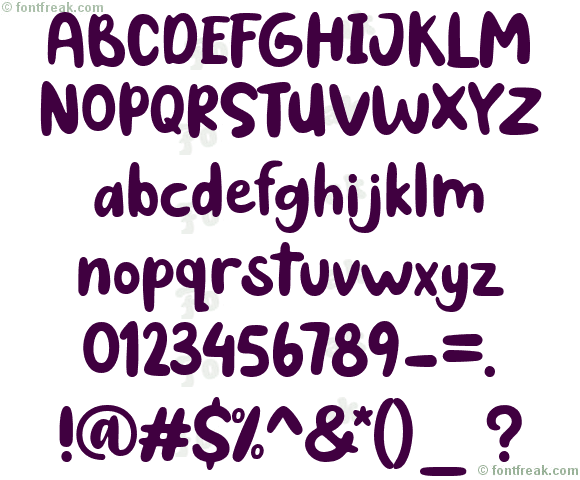
Spooky Cat
The Spooky Cat font by Situjuh Nazara is a playful, decorative typeface that embraces a whimsical yet slightly eerie aesthetic, making it perfect for various creative projects. This font falls into the display category, characterized by its bold, chunky letterforms that showcase a unique blend of fun and spookiness. The stroke weight is consistently thick, providing a robust presence, while the rounded edges add a friendly touch. The spacing is generous, enhancing readability and allowing the letters to breathe, which is particularly beneficial for design applications requiring clarity.
Ideal for Halloween-themed designs, the Spooky Cat font can be used effectively in a variety of contexts. It shines on party invitations, where its playful nature adds a festive flair. Graphic designers can utilize it for eye-catching movie posters, particularly for horror or supernatural genres, as it captures the essence of the theme. Small business owners, especially those in the food and beverage industry, may find it suitable for quirky restaurant menus or promotional materials. Content creators looking to engage their audience can incorporate this font in social media graphics or blog headers, giving their work a distinctive personality.
The target audience for the Spooky Cat font includes graphic designers, small business owners, and content creators who are in search of a unique typeface that resonates with a whimsical, spooky theme. This font stands out due to its ability to blend a sense of fun with an underlying eeriness, making it versatile for various design needs. With its free availability, the Spooky Cat font free download offers an excellent opportunity for creatives to enhance their projects with a touch of personality and charm.